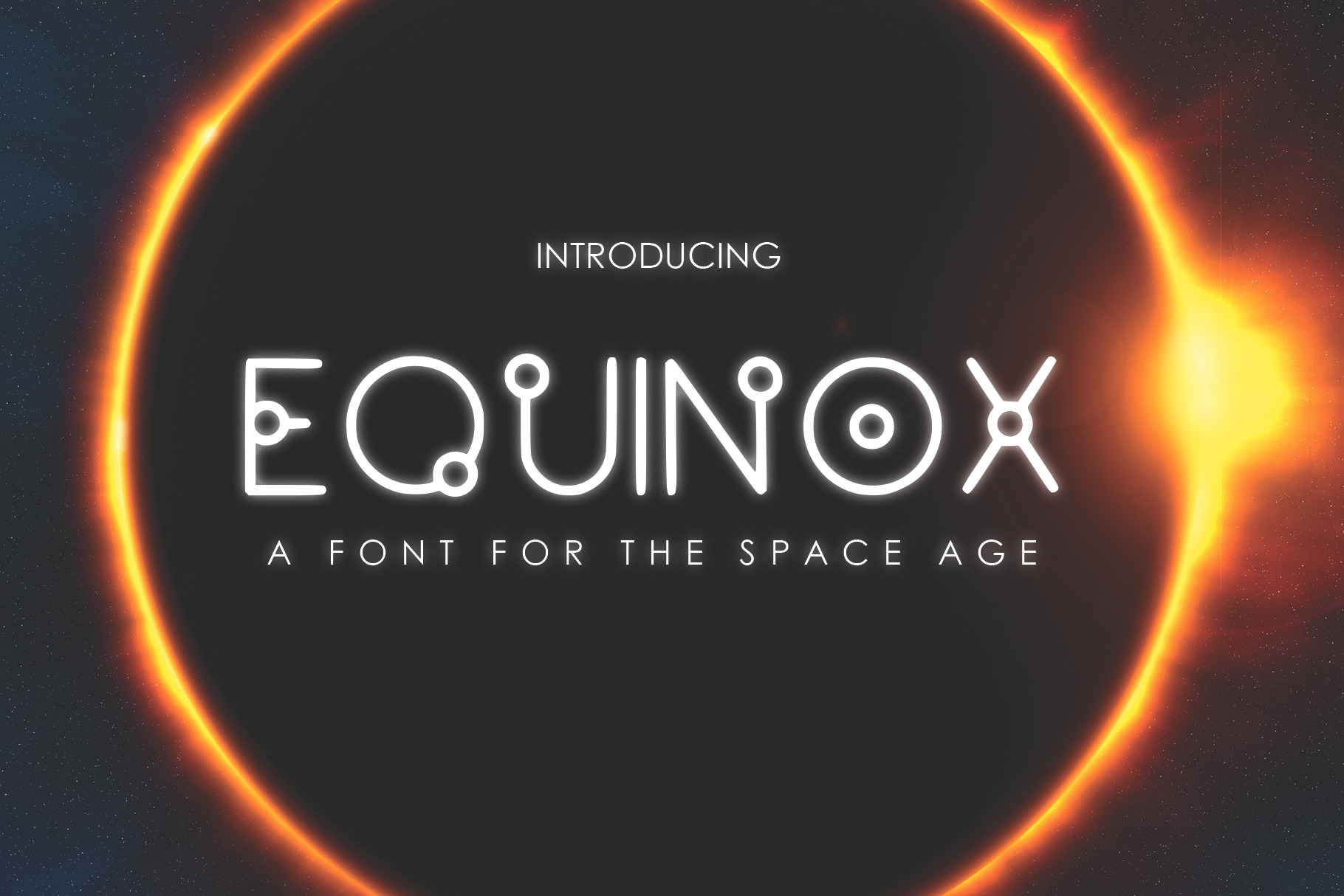
EQUINOX - A Font for the Space Age
EQUINOX is a unique and creative design that has been passionately handcrafted to give you a futuristic typeface. Inspired by the orbit of the planets in our universe.
Contains upper and lowercase letters as well as numbers.